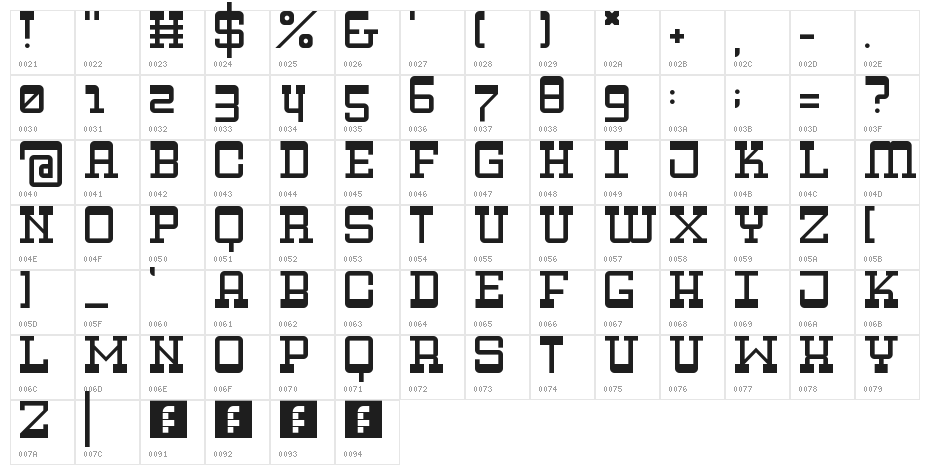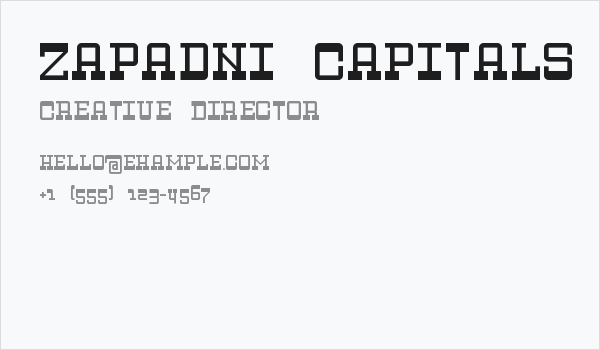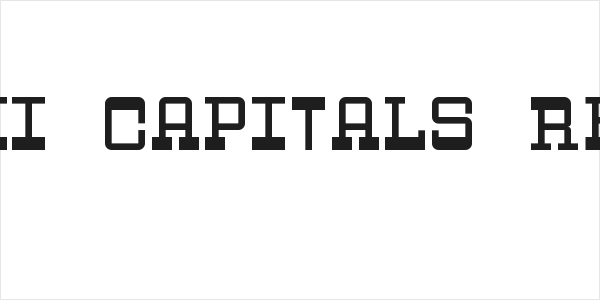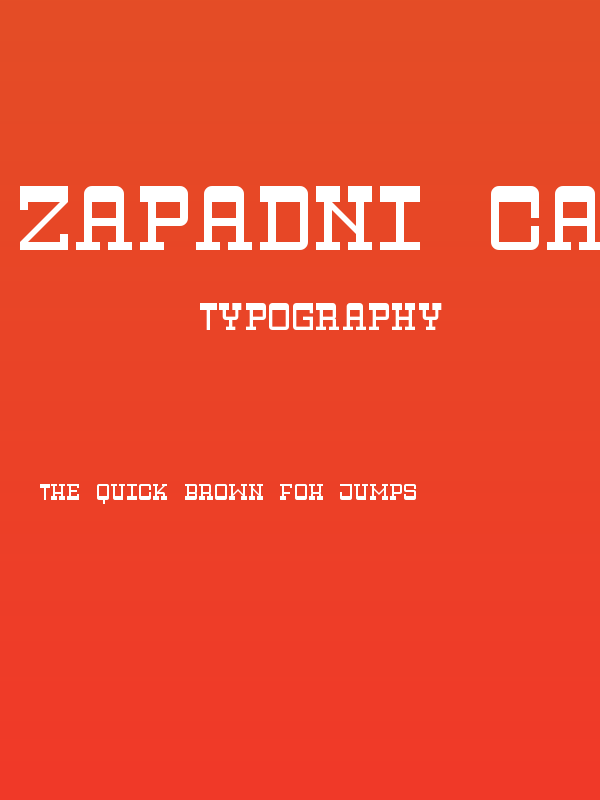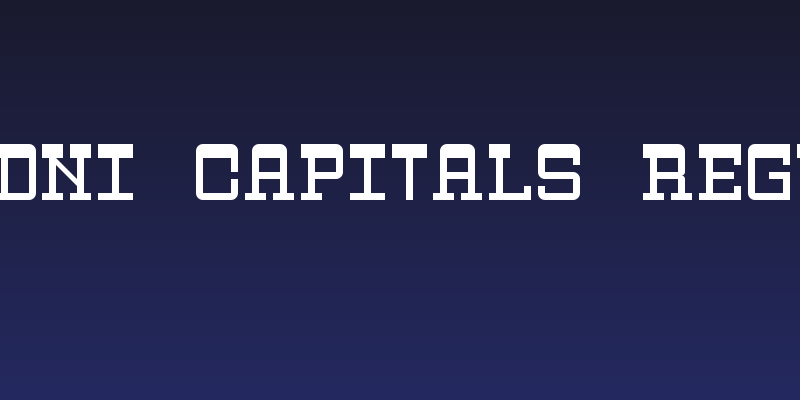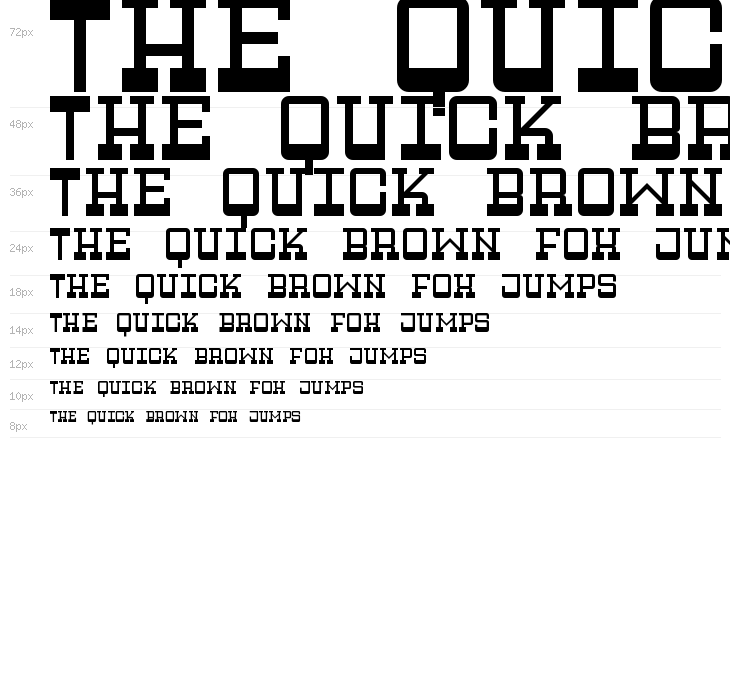
Zapadni Capitals Regular Font
Zapadni Capitals Regular Description
This font features a bold, geometric design with strong, block-like characters. Each letter is crafted with a uniform thickness, giving it a robust and industrial feel. The characters are slightly condensed, enhancing their compact appearance. The font's design is reminiscent of vintage typefaces used in signage and posters, with a modern twist. Its distinct style is characterized by sharp angles and a consistent stroke width, making it highly legible and impactful. The numbers and special characters maintain the same bold and structured aesthetic, ensuring consistency across all elements.
| Proposed Projects | Ideal for posters, signage, branding, and any project requiring a strong, impactful typeface. |